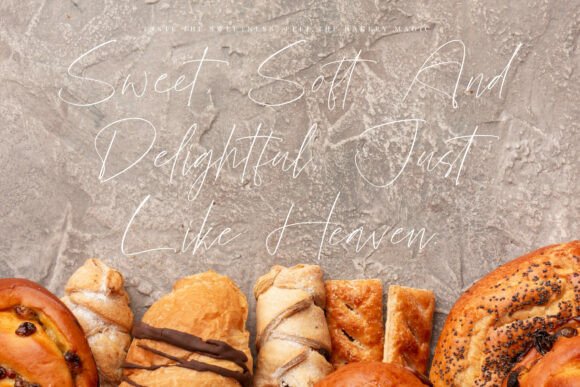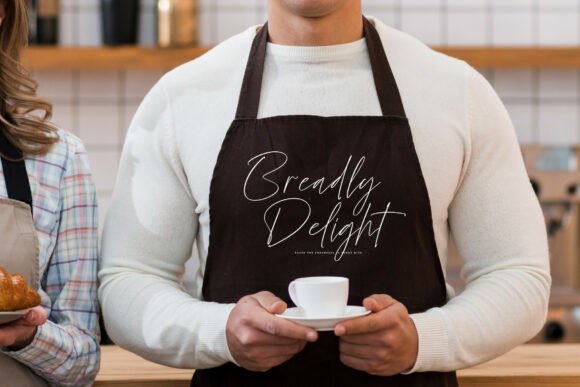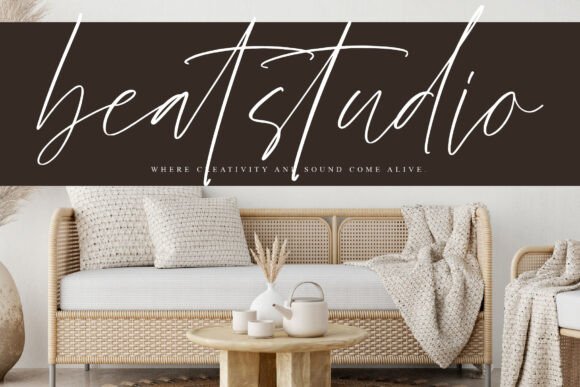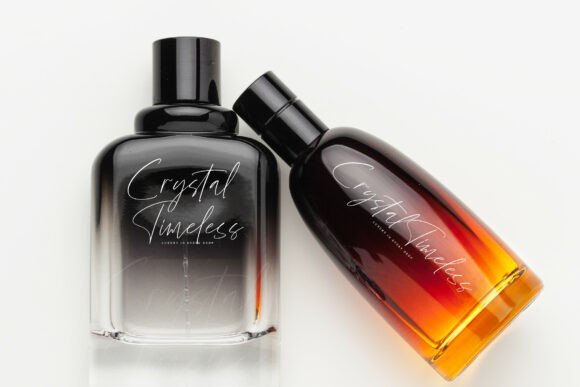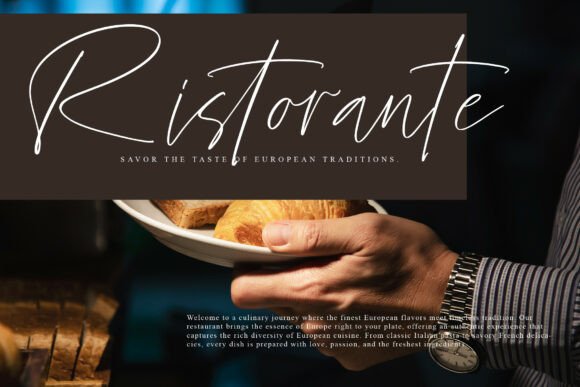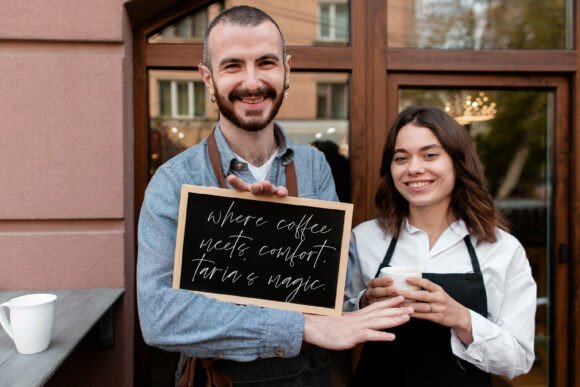
The Perfect Script for Your Premium Designs
Have you ever stared at a blank page, struggling to find the right font to bring your design to life? We’ve all been there. But what if you could tap into a world of elegance and sophistication with just one click? Enter Fashiones Font, a stunning modern signature script from Operatype that’s designed to elevate your premium design needs.
Fashiones Font is more than just a font – it’s a key to unlocking luxury and class in your designs. With its flowing strokes and refined curves, it adds a personalized touch that feels both stylish and authentic. Whether you’re crafting a logo, packaging, or editorial spread, this font is the perfect companion to help you create something truly exceptional.
Fashiones Font Key Features
- Unique Characteristics: Fashiones Font is a high-end, luxury font designed for fashion and beauty branding, featuring elegant and sophisticated letterforms, intricate details, and a wide range of ligatures and swashes.
- Font Style: Script, Display, Luxury
- Language Support: Latin, Cyrillic, Greek, and many other languages
Fashiones Font Review
Overall, I have mixed feelings about Fashiones Font. On the one hand, it’s a great choice for fashion or beauty-related projects where you want to convey a sense of elegance and sophistication. ✨ The font is modern, clean, and easy to read. It’s also highly customizable, which is a plus for designers who want to tailor the font to their specific project needs.
Here are some specific things that I like about Fashiones Font:
- ✨ Great for fashion or beauty projects
- ✨ Modern and clean design
- ✨ Highly customizable
- ✨ Supports a wide range of languages
- ⚠️ Limited character set
- ⚠️ Not ideal for projects that require a lot of text
- ⚠️ May not be suitable for use in small sizes or low-resolution designs
Overall, I think Fashiones Font is a solid choice for designers who want to add a touch of elegance to their fashion or beauty projects. However, it’s not a one-size-fits-all solution, and designers should carefully consider the limitations before making a decision.
Tips for Getting the Most Out of Fashiones Font
Use Fashiones Font for high-fashion designs, luxury branding, and editorial content.
Experiment with different font sizes, colors, and combinations to achieve a unique and stylish look.
Use Fashiones Font in conjunction with other design elements, such as graphics and
Alternatives to Fashiones Font
Lato Font is a clean and modern sans-serif font, suitable for various design projects, including logos, headings, and body text. It’s particularly effective for creating a minimalist and sophisticated look. In comparison to Fashiones Font, Lato Font has a more subtle and elegant feel, making it a great choice for designs that require a touch of sophistication.
Montserrat Font is a geometric sans-serif font, designed to work well in small sizes and on digital screens. It’s ideal for creating a modern and urban look, making it perfect for designs that require a sense of edginess. Compared to Fashiones Font, Montserrat Font has a more aggressive and modern feel, making it suitable for designs that need to stand out.
Abril Fatface Font
Abril Fatface Font is a beautiful and elegant script font, perfect for creating a luxurious and sophisticated look. It’s ideal for designs that require a touch of elegance, such as invitations, wedding designs, and luxury branding. In comparison to Fashiones Font, Abril Fatface Font has a more refined and sophisticated feel, making it a great choice for designs that need to convey a sense of luxury.